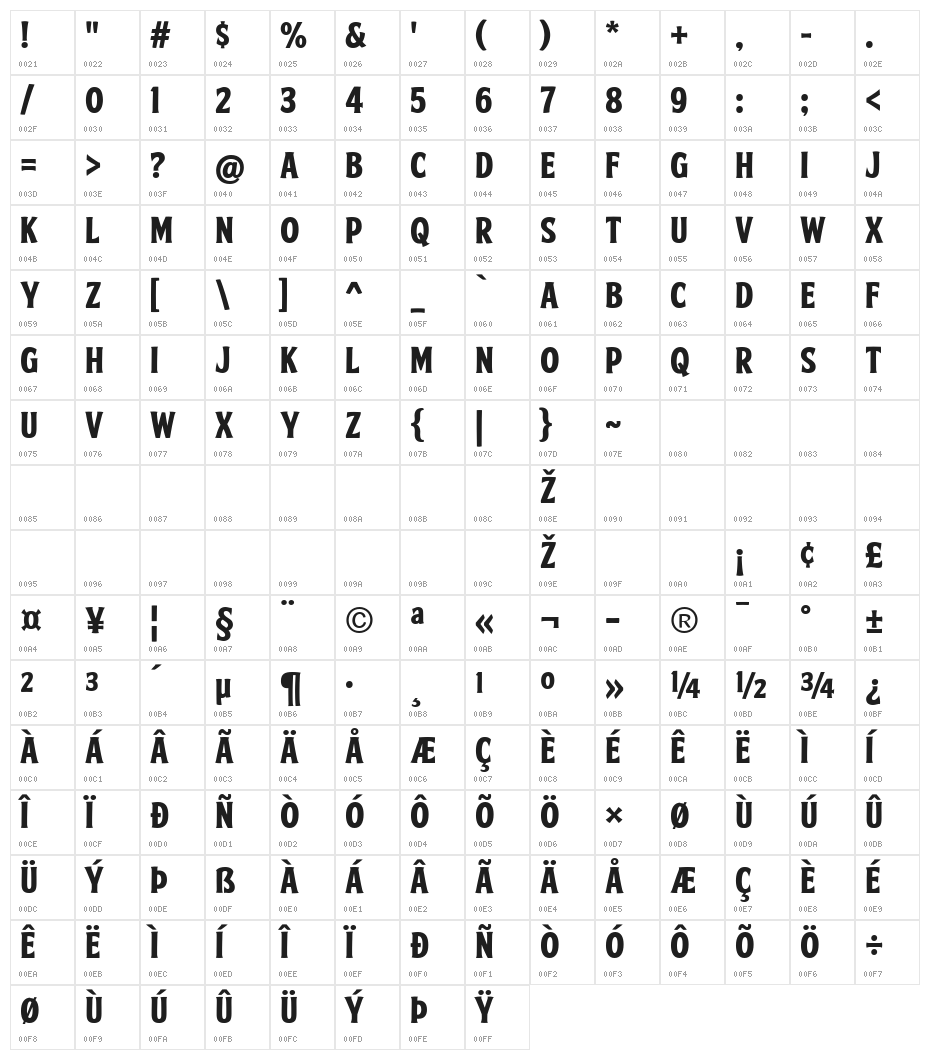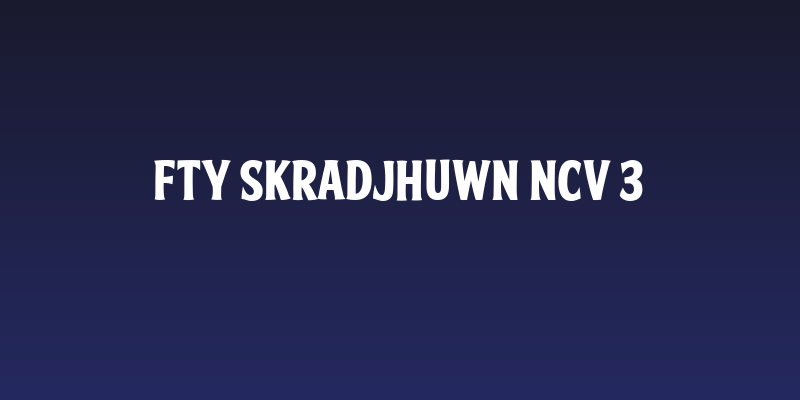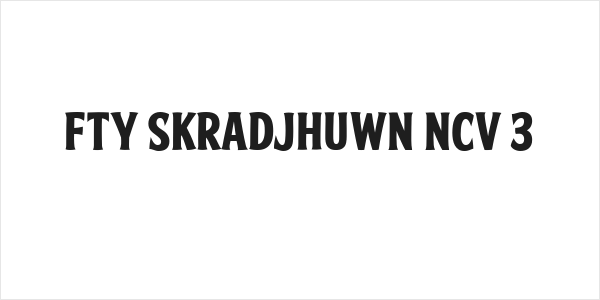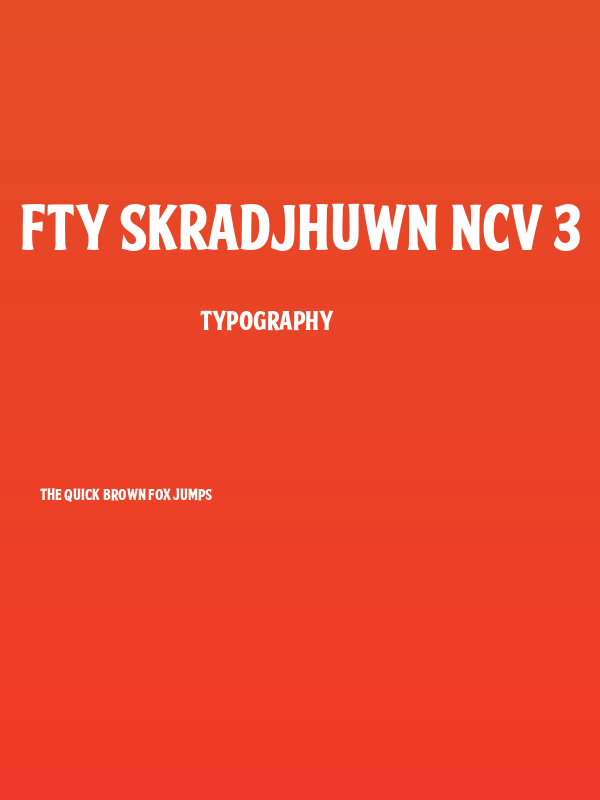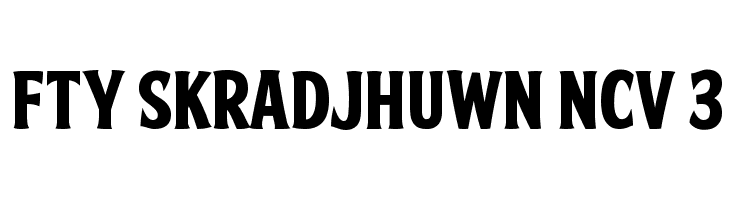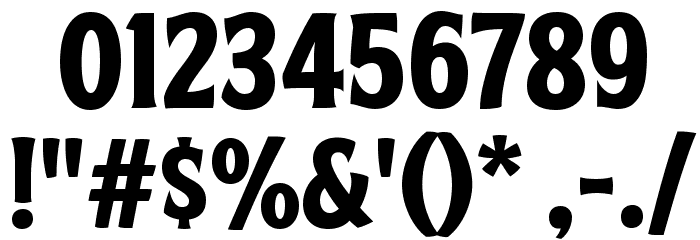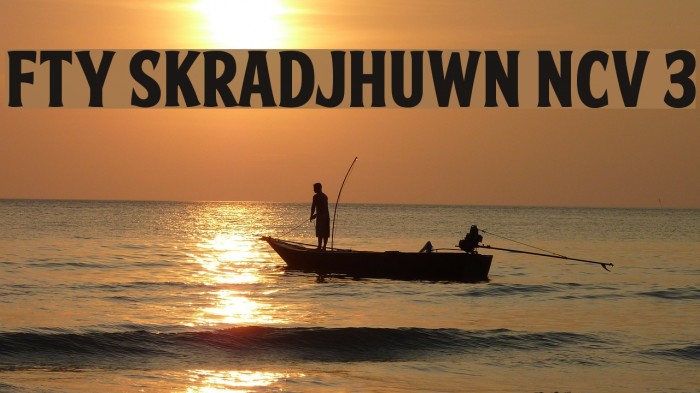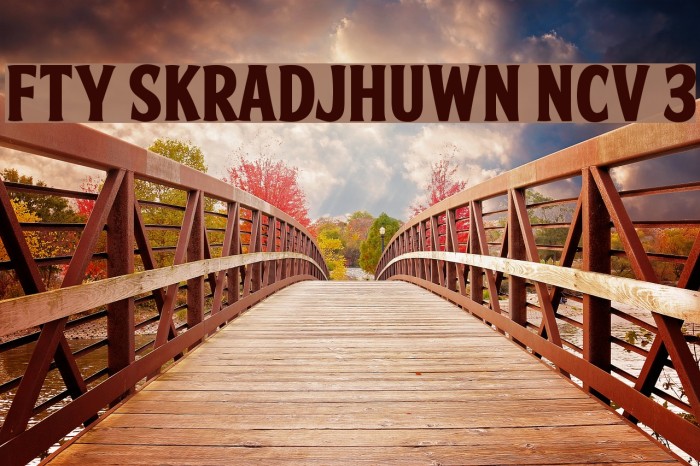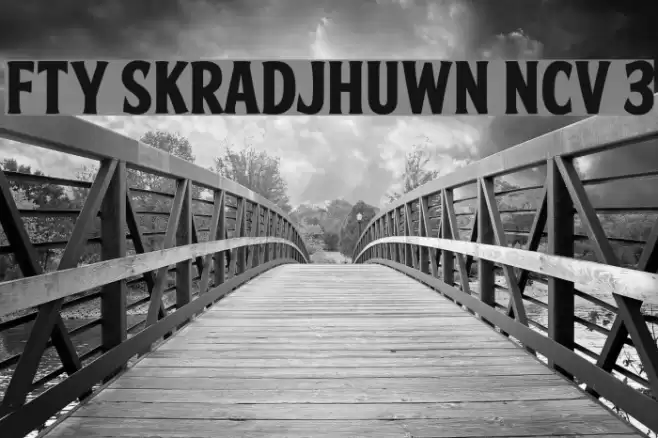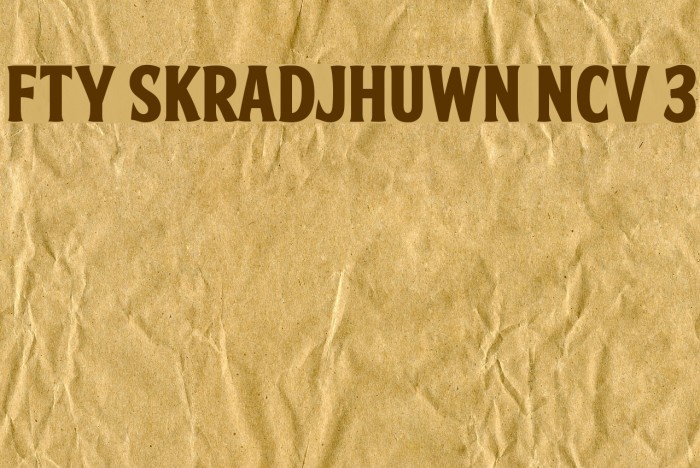
FTY SKRADJHUWN NCV 3 Font
FTY SKRADJHUWN NCV 3 Description
This font features bold, thick strokes with a strong presence, making it ideal for attention-grabbing headlines and titles. The characters are well-defined with a slight curvature that adds a touch of elegance to the otherwise robust design. The uppercase and lowercase letters maintain a consistent style, ensuring readability and uniformity across different text sizes. The numerals are equally bold, matching the overall aesthetic of the font. Special characters are included, providing versatility for various design needs. The font's style is reminiscent of vintage poster typography, yet it retains a modern appeal.
| Overall Style | Vintage |
| Proposed Projects | Ideal for posters, headlines, branding, and any project requiring a bold, impactful typeface. |